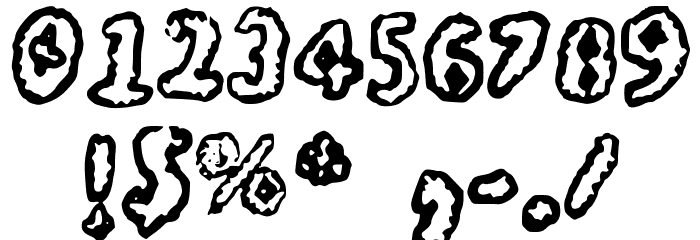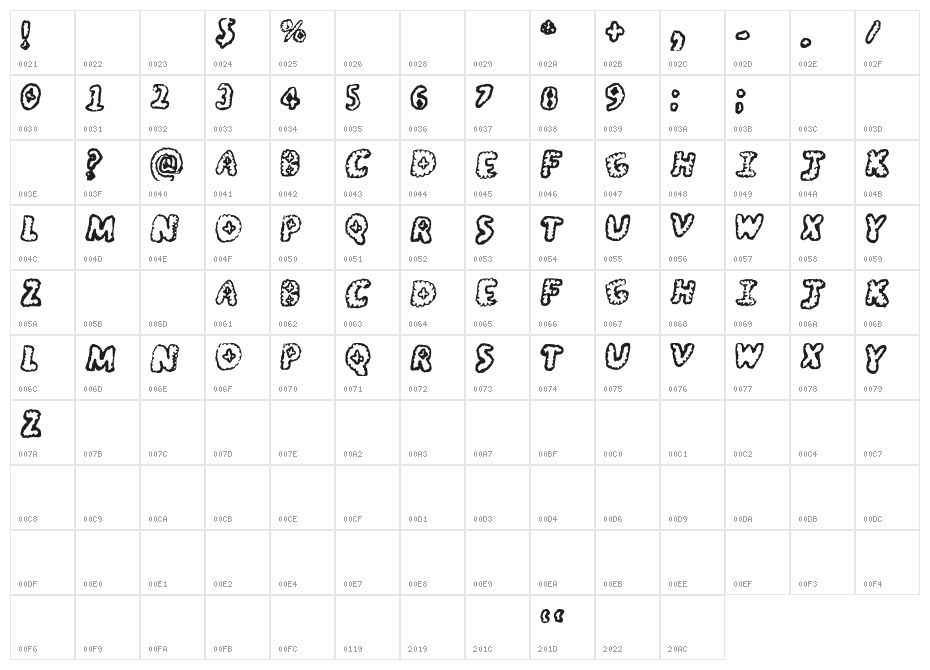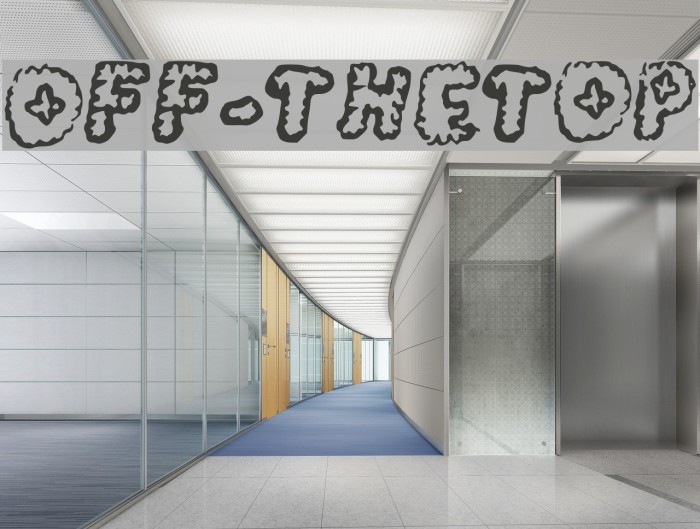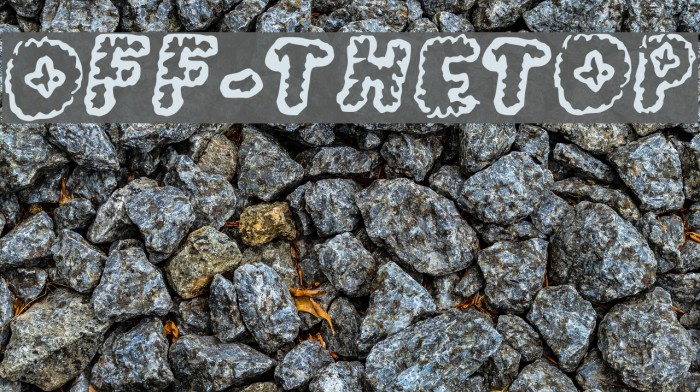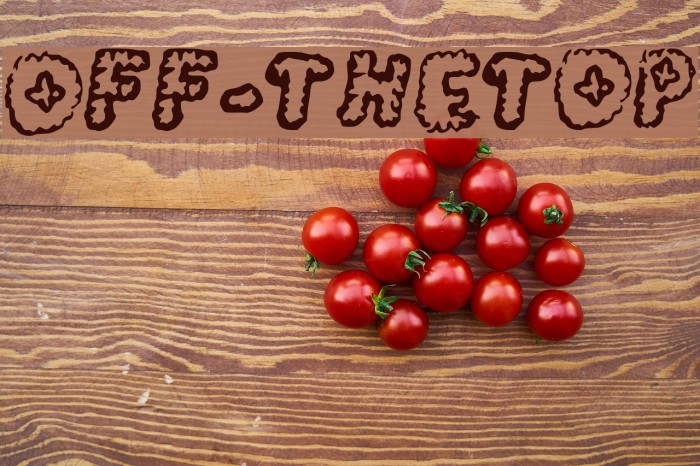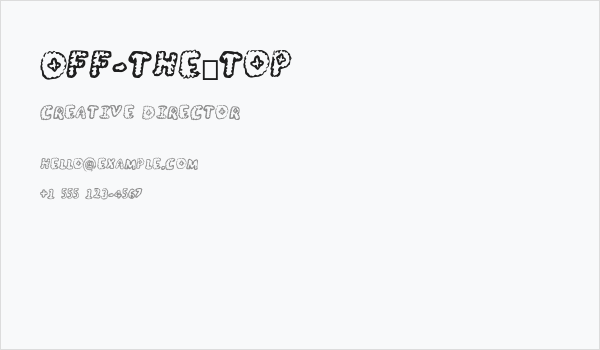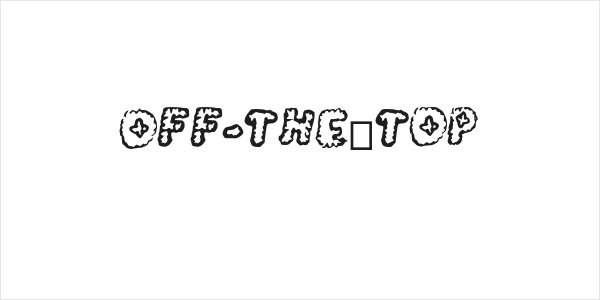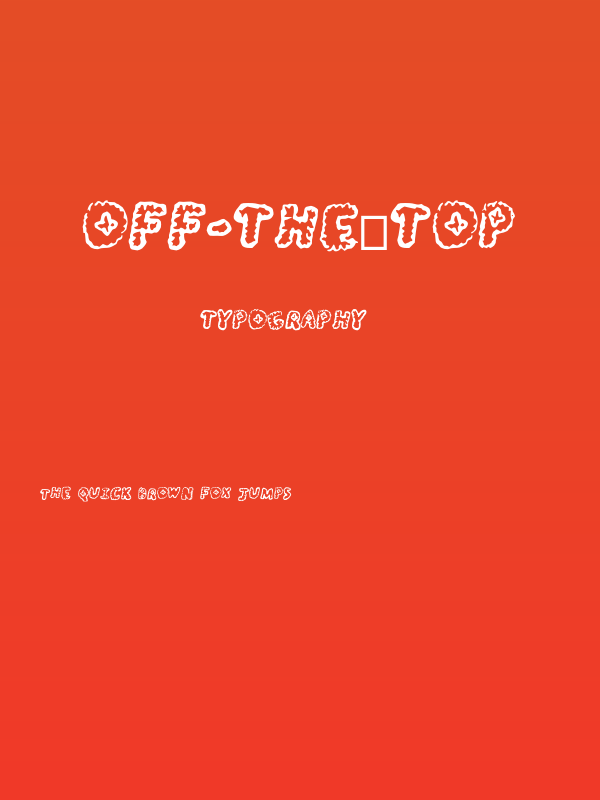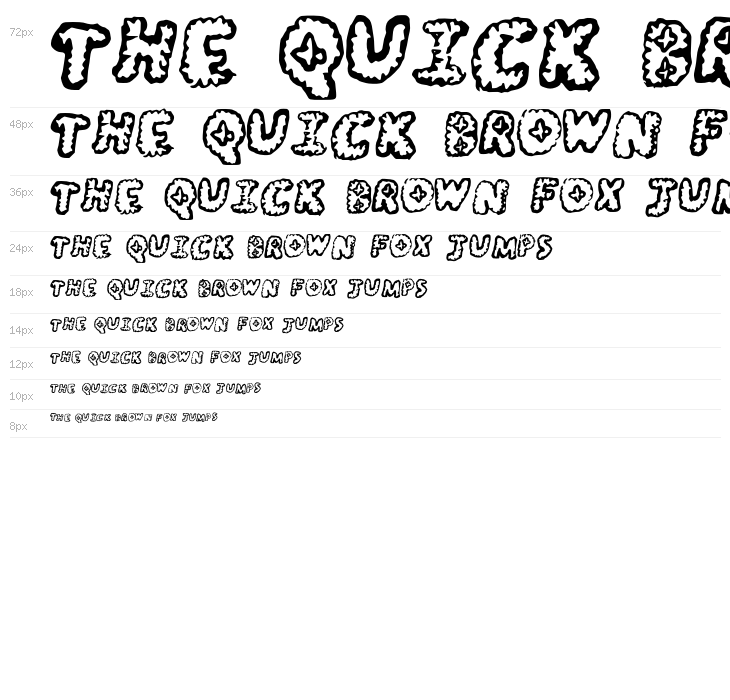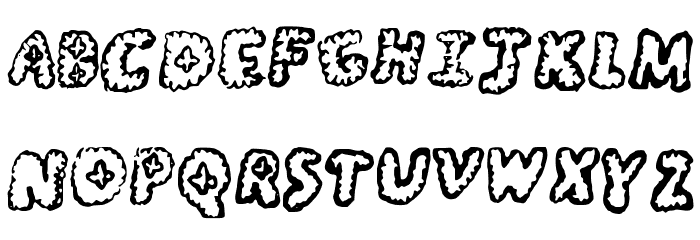
Off-the_top Font
Off-the_top Description
This playful and bold font features a unique, bubbly outline that gives each character a lively and dynamic appearance. The letters are designed with a thick, uneven stroke that creates a sense of movement and energy. The font maintains a consistent style across uppercase, lowercase, numbers, and special characters, making it versatile for various design needs. Its whimsical nature is perfect for projects that require a fun and engaging visual element. The characters are well-spaced, ensuring readability while maintaining their distinctive style.
| Proposed Projects | Ideal for children's books, comic strips, playful branding, and party invitations. |